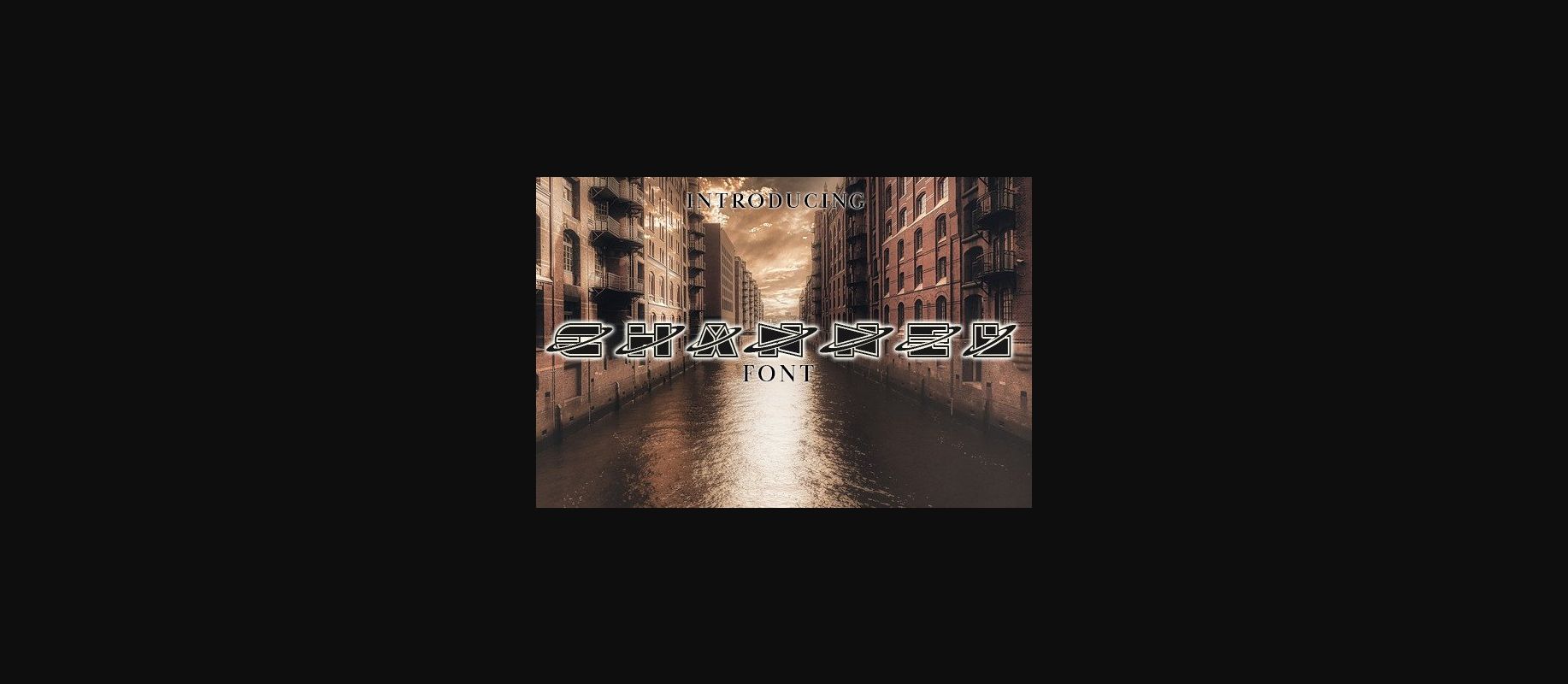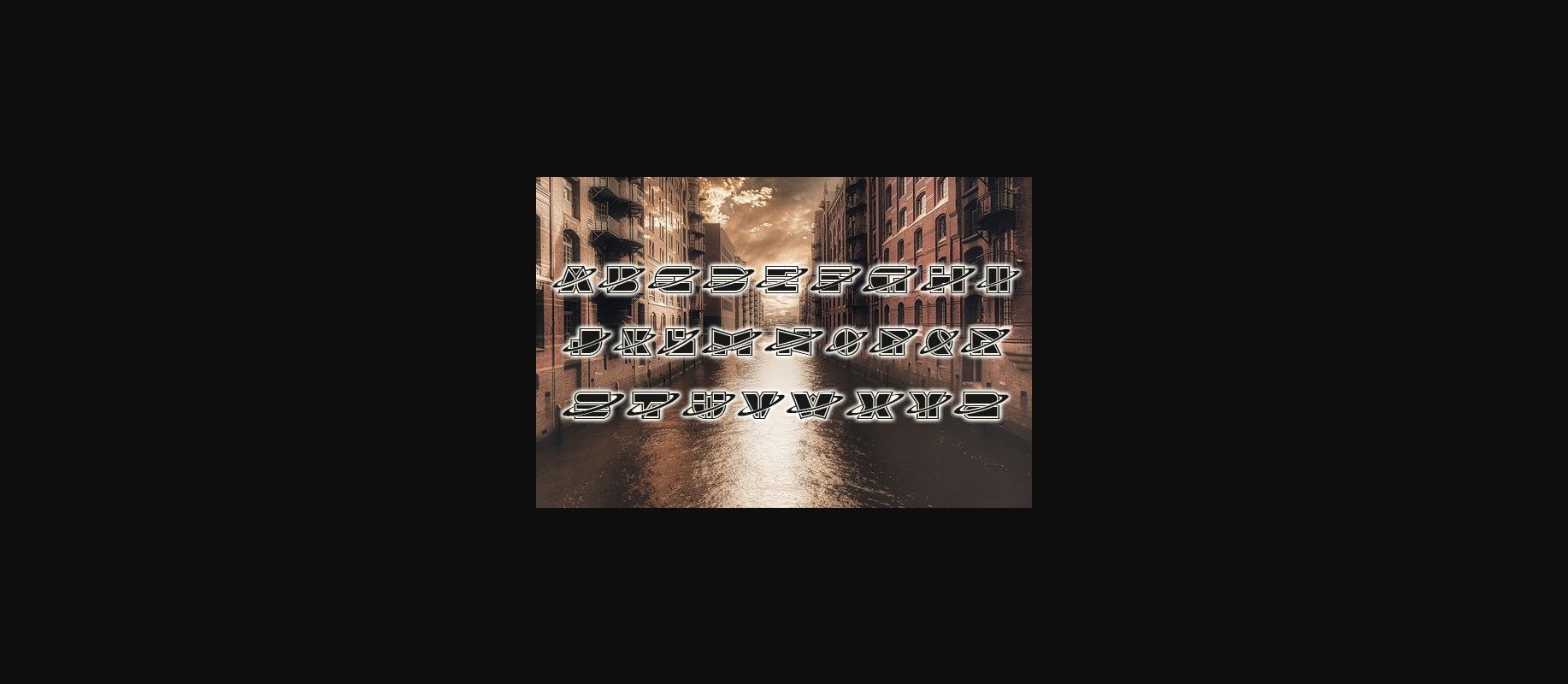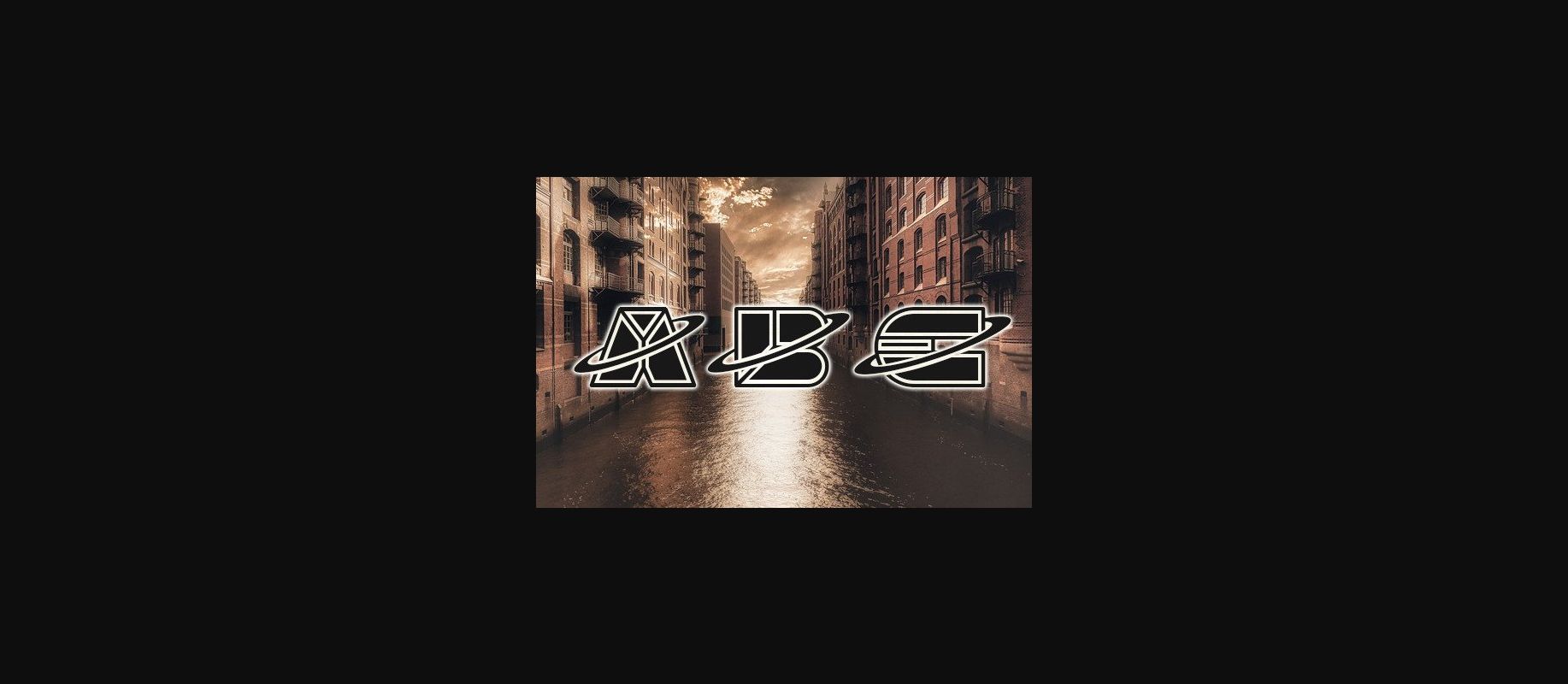
Channel Font
About Channel Font
Channel is an elegant and striking decorative typeface that will look stunning on any of your designs. Use this font on posters, flyers, and much more.